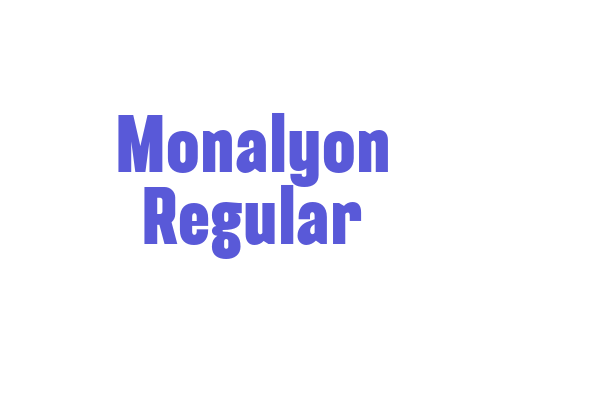
Monalyon Regular is a basic sans serif font designed by Lukman Typia Nesia. With its clean and modern style, this font is perfect for a variety of design projects that require a simple and professional look. The Monalyon font family offers a range of weights and styles to suit different design needs.
Font Name: Monalyon Regular
Designer: Lukman Typia Nesia
Font Family: Monalyon